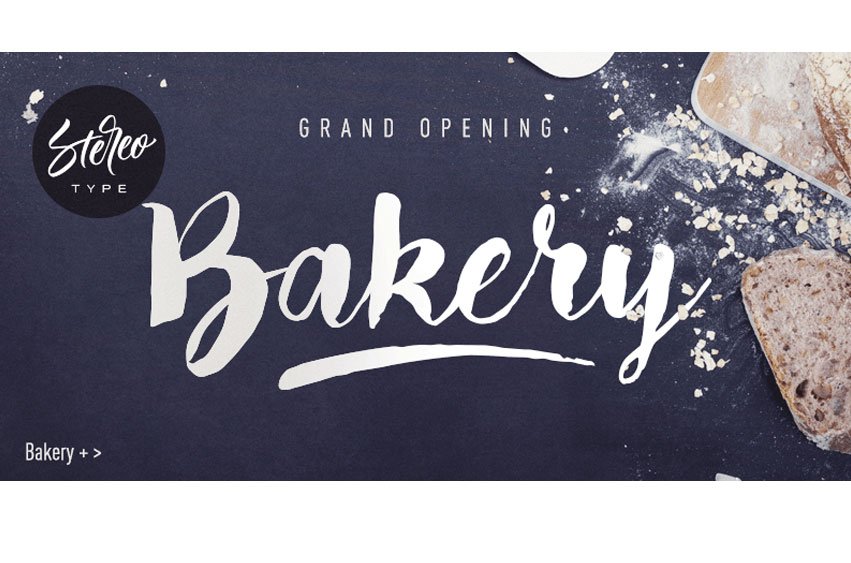
Bakery Font is suitable for flyers, posters, novels, letterheads, or any design requirements you want to be awesome.
It will certainly amaze your readers.